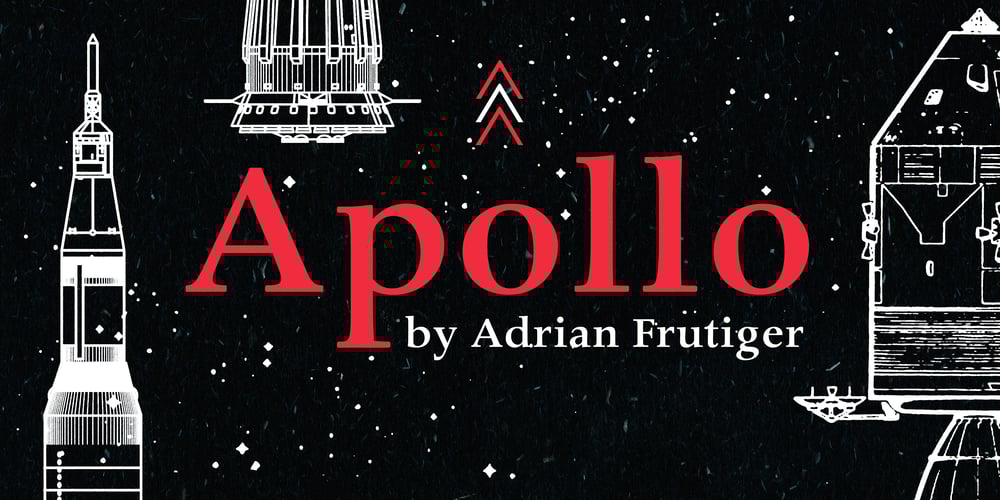
Apollo Font Family was designed by Adrian Frutiger and published by Monotype. Apollo contains 3 styles and family package options. Apollo is oddly one of the lesser known typefaces of Frutiger, perhaps due to the extreme fame of some of his other works, like the typefaces Frutiger® and Univers®. Stylistically, the very legible and harmonic Apollo is an old face. Frutiger designed it especially for the photosetting used at the time. The Apollo typeface family consists of the weights roman and semibold and their respective italics as well as expert sets. Frutiger optimized the relation between the two weights so that the roman is robust enough to present a legible text on soft paper but light enough to contrast with the semibold. The clear, elegant Apollo is perfect for headlines as well as long texts.